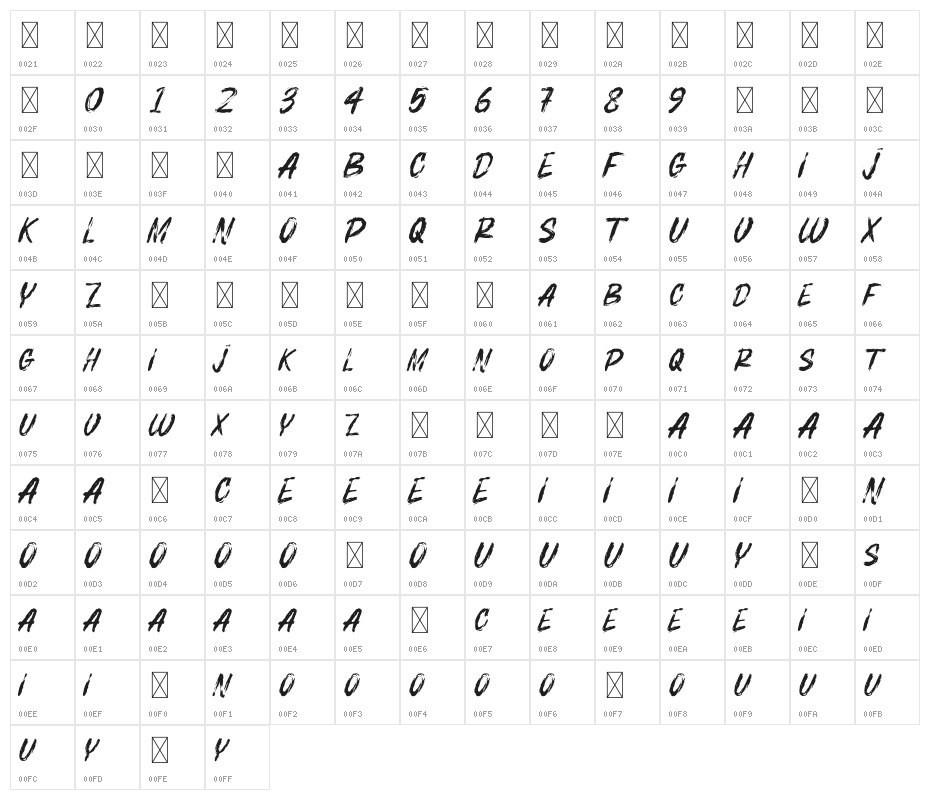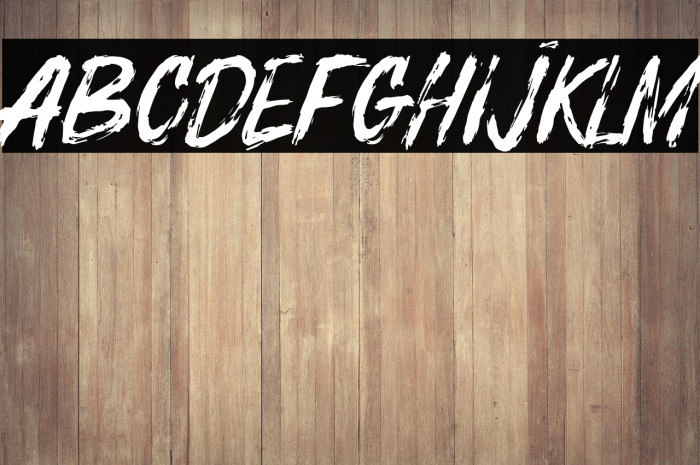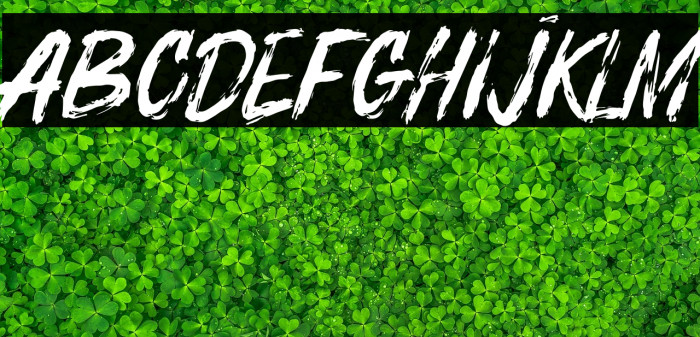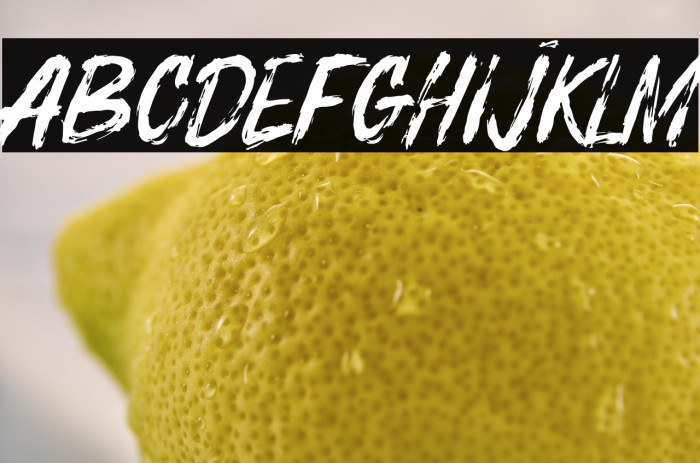
BOSTHON BRUSH Font
BOSTHON BRUSH Description
This font exudes a dynamic and energetic vibe, characterized by its bold, brush-stroke appearance. The letters are crafted with a rough, textured edge, giving them a hand-painted look that is both artistic and expressive. Each character maintains a consistent slant, adding to the sense of motion and fluidity. The uppercase and lowercase letters are well-balanced, with a slightly condensed form that enhances readability while preserving the font's distinctive style. The numerals and special characters follow the same design principles, ensuring a cohesive look across all text elements. This font is perfect for projects that require a bold, creative touch.
| Proposed Projects | Ideal for branding, posters, album covers, and any design needing a bold, artistic flair. |